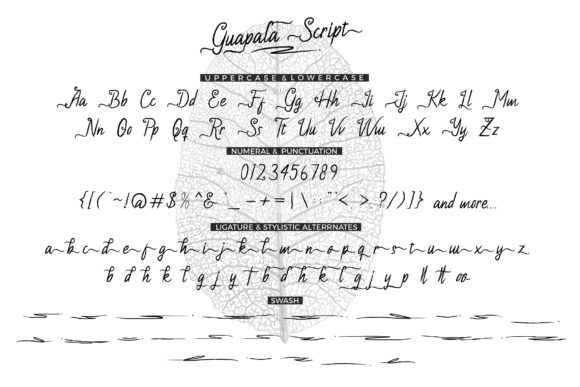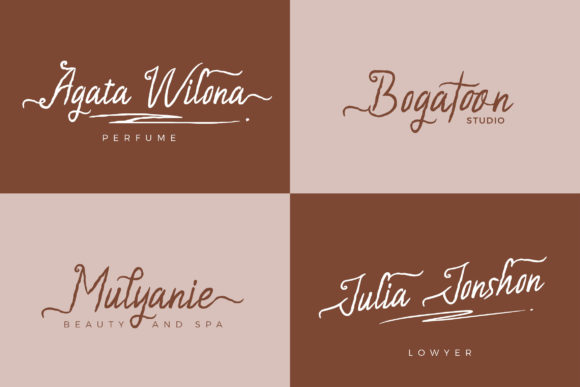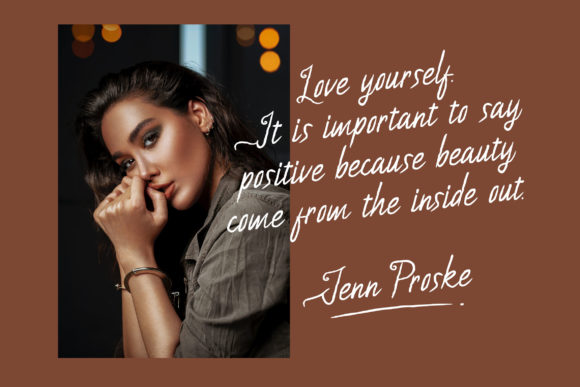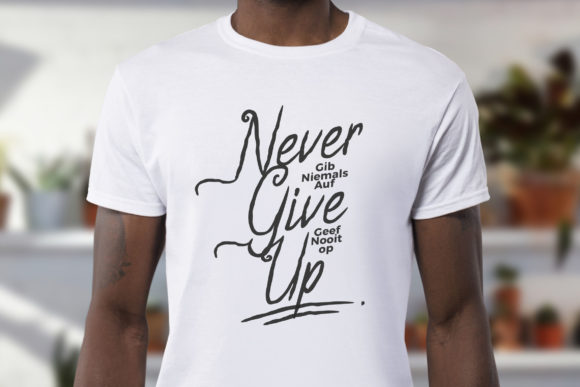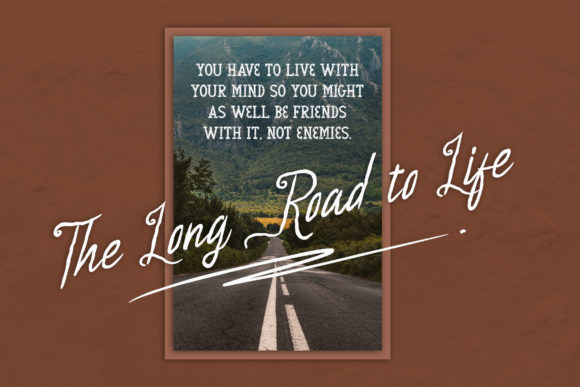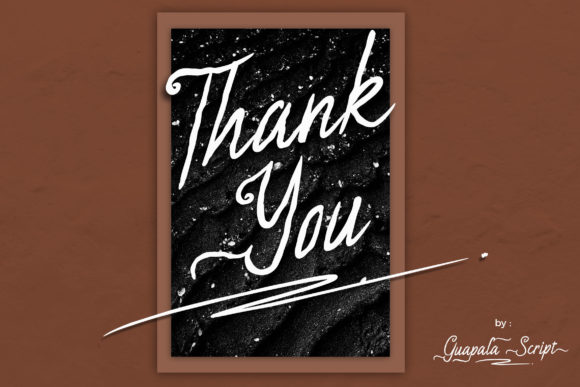
Introducing Guapala Font: The Casual Handwritten Style for Personalized Designs
In the world of design, fonts play a crucial role in conveying the tone and personality of a project. Whether you’re working on a branding campaign, a crafting project, or a digital design, the right font can make all the difference. If you’re looking for a font that exudes a personal and authentic touch, look no further than Guapala Font. In this article, we’ll dive into the world of Guapala, exploring its unique features, uses, and benefits for designers and crafters alike.
What is Guapala Font?
Guapala is a casual handwritten font designed to bring a personal and authentic look to your designs. With its unique, flowing script, Guapala is perfect for creating a warm and inviting atmosphere in your projects. This font is ideal for designers and crafters who want to add a touch of personality to their work, making it stand out from the crowd.
Key Features of Guapala Font
So, what makes Guapala Font so special? Here are some of its key features:
- Casual and Handwritten: Guapala has a relaxed, handwritten feel that’s perfect for creating a personal and authentic look.
- Unique and Quirky: This font has a distinctive, quirky style that’s sure to grab attention.
- Easy to Read: Despite its casual nature, Guapala is easy to read, making it perfect for body text and headlines.
- Versatile: Guapala can be used for a wide range of projects, from branding and advertising to crafting and digital design.
Uses for Guapala Font
Guapala Font is incredibly versatile, making it suitable for a variety of projects and applications. Here are some ideas to get you started:
- Branding and Identity: Use Guapala to create a unique and memorable brand identity that stands out from the competition.
- Digital Design: Add a personal touch to your digital designs, such as website headers, social media graphics, and email newsletters.
- Crafting and Scrapbooking: Guapala is perfect for crafters and scrapbookers who want to add a personal touch to their projects.
- Advertising and Marketing: Use Guapala to create eye-catching ads and marketing materials that grab attention.
Benefits of Using Guapala Font
So, why choose Guapala Font for your next project? Here are some benefits to consider:
- Personal Touch: Guapala adds a personal and authentic touch to your designs, making them more relatable and engaging.
- Unique Style: This font has a distinctive style that’s sure to set your project apart from the competition.
- Time-Saving: With Guapala, you can create professional-looking designs in no time, saving you time and effort.
Tips for Using Guapala Font
To get the most out of Guapala Font, here are some tips to keep in mind:
- Pair with Other Fonts: Experiment with pairing Guapala with other fonts to create a unique and visually appealing combination.
- Use for Headlines and Body Text: Guapala works well for both headlines and body text, making it a versatile font for a wide range of projects.
In conclusion, Guapala Font is a versatile and unique casual handwritten font that’s perfect for designers and crafters looking to add a personal touch to their projects. With its flowing script and quirky style, Guapala is sure to grab attention and make your designs stand out. Whether you’re working on a branding campaign, a digital design, or a crafting project, Guapala is a great choice. So why not give it a try and see the difference it can make in your designs?